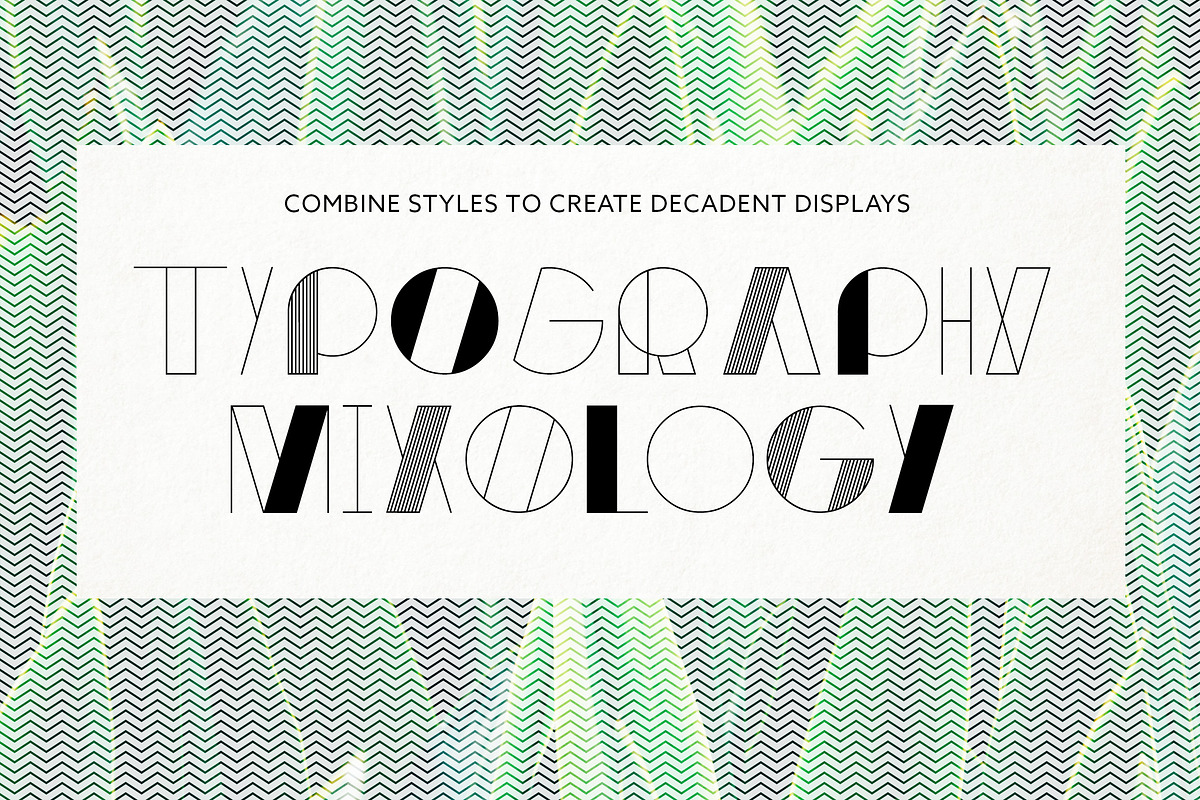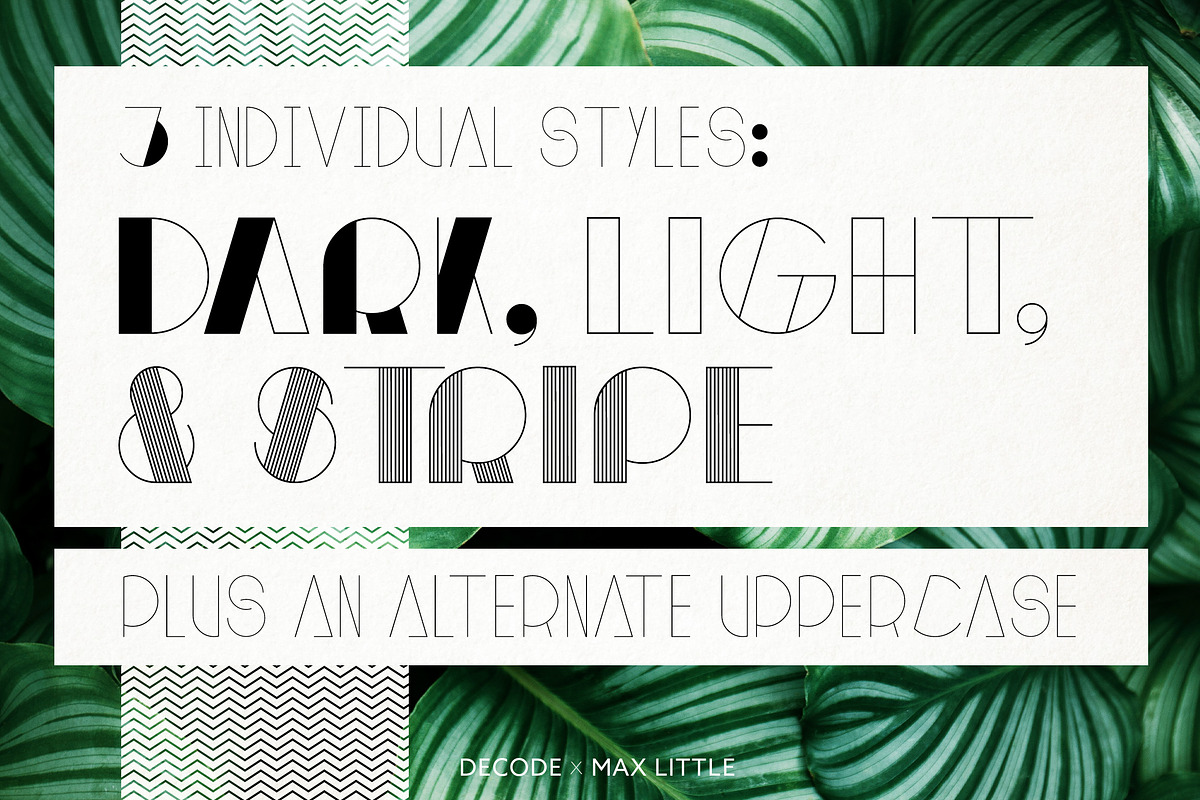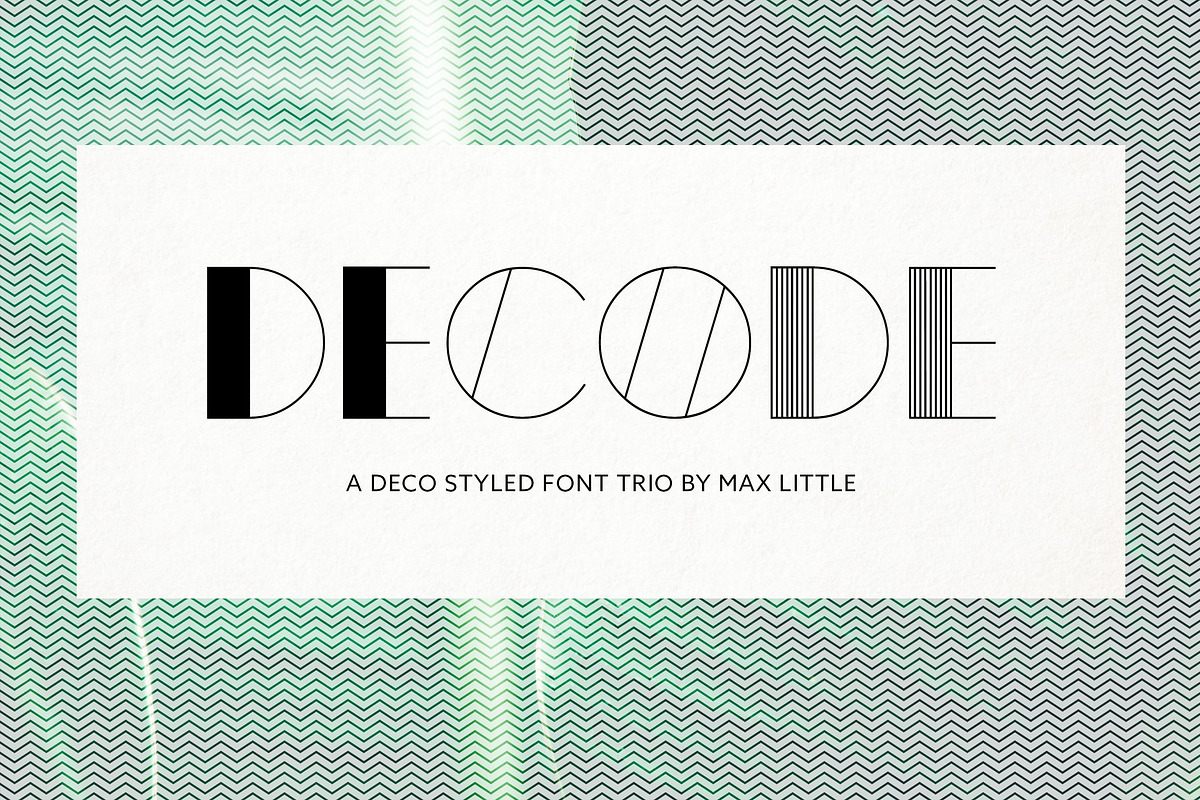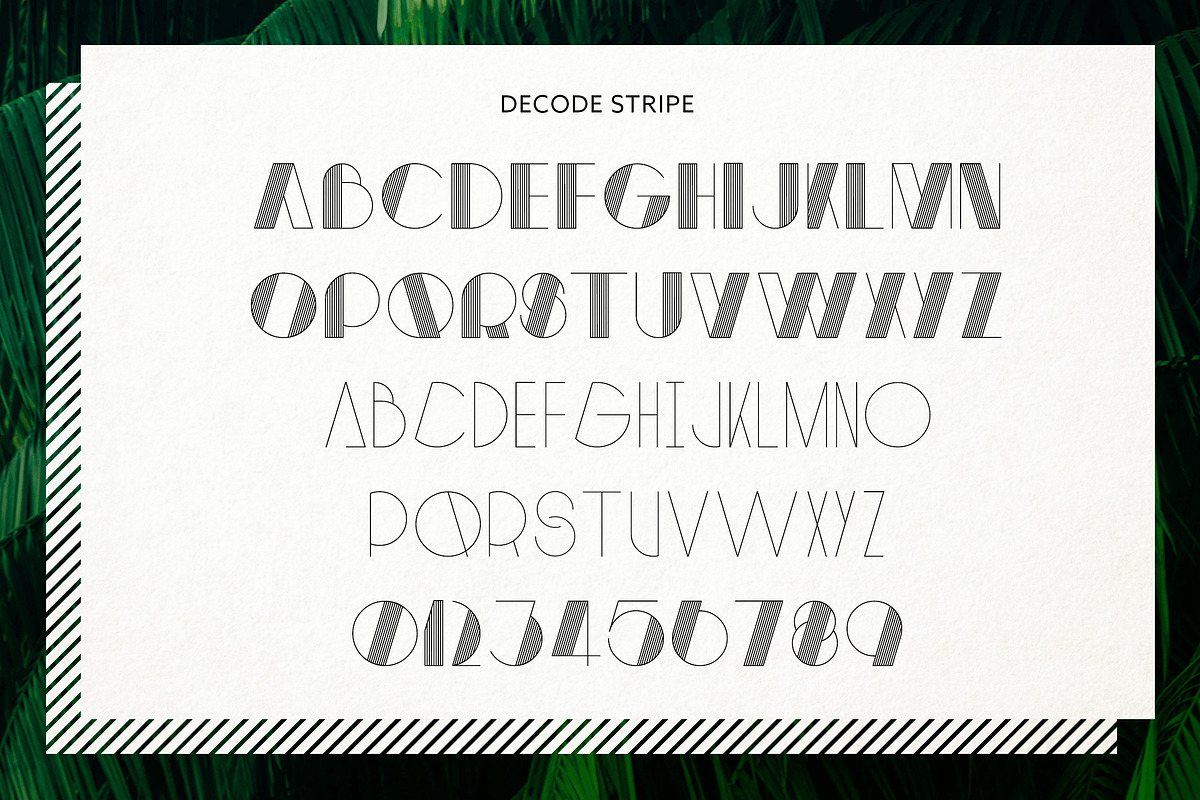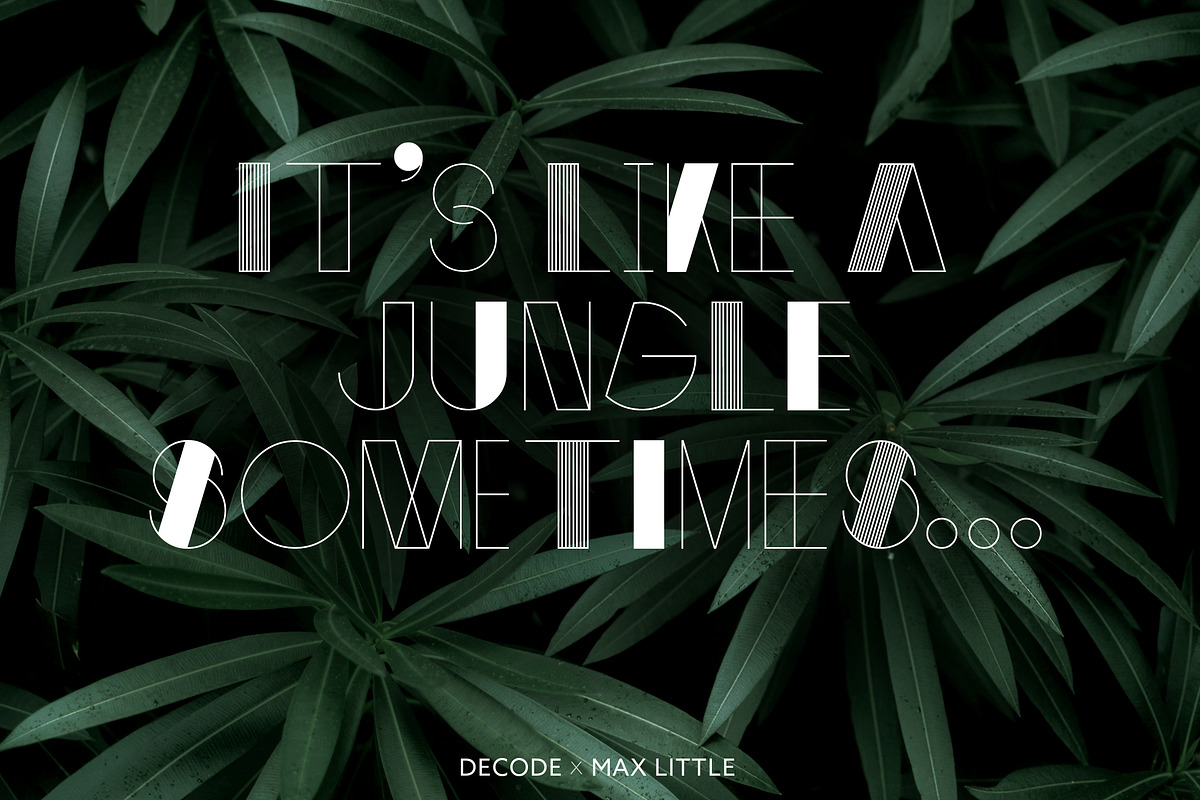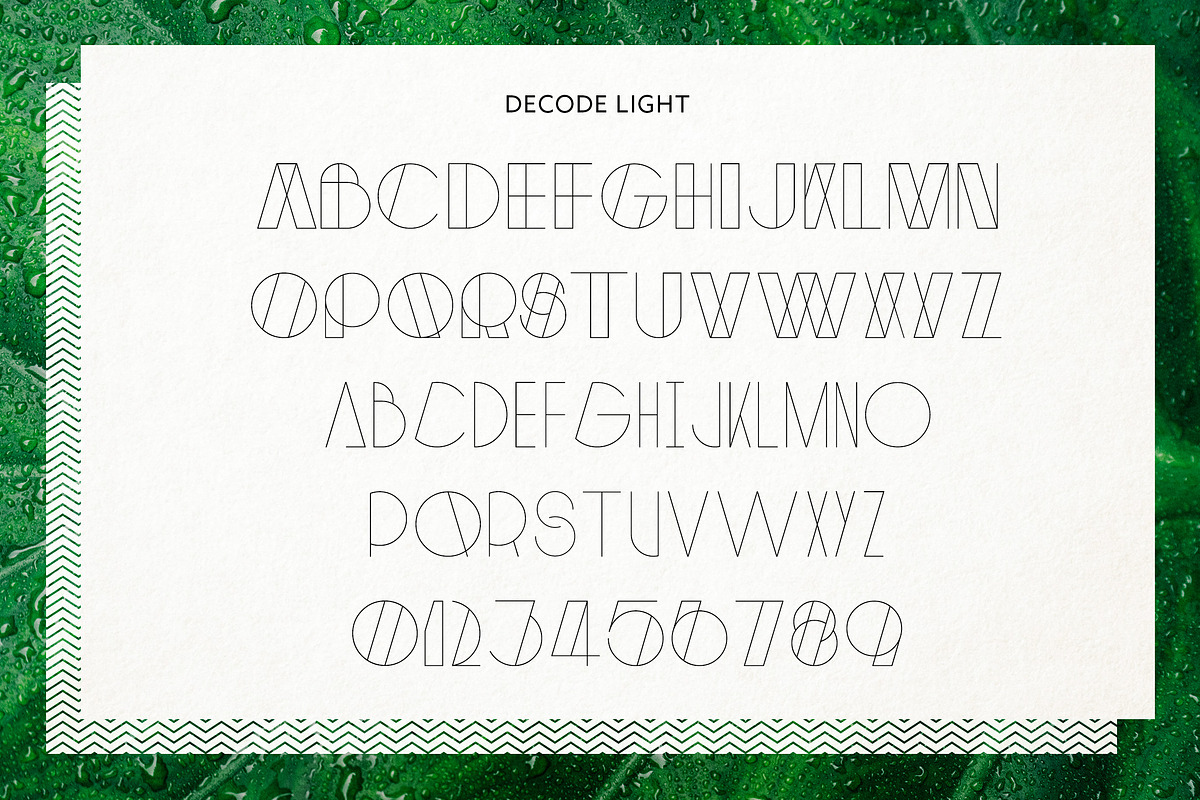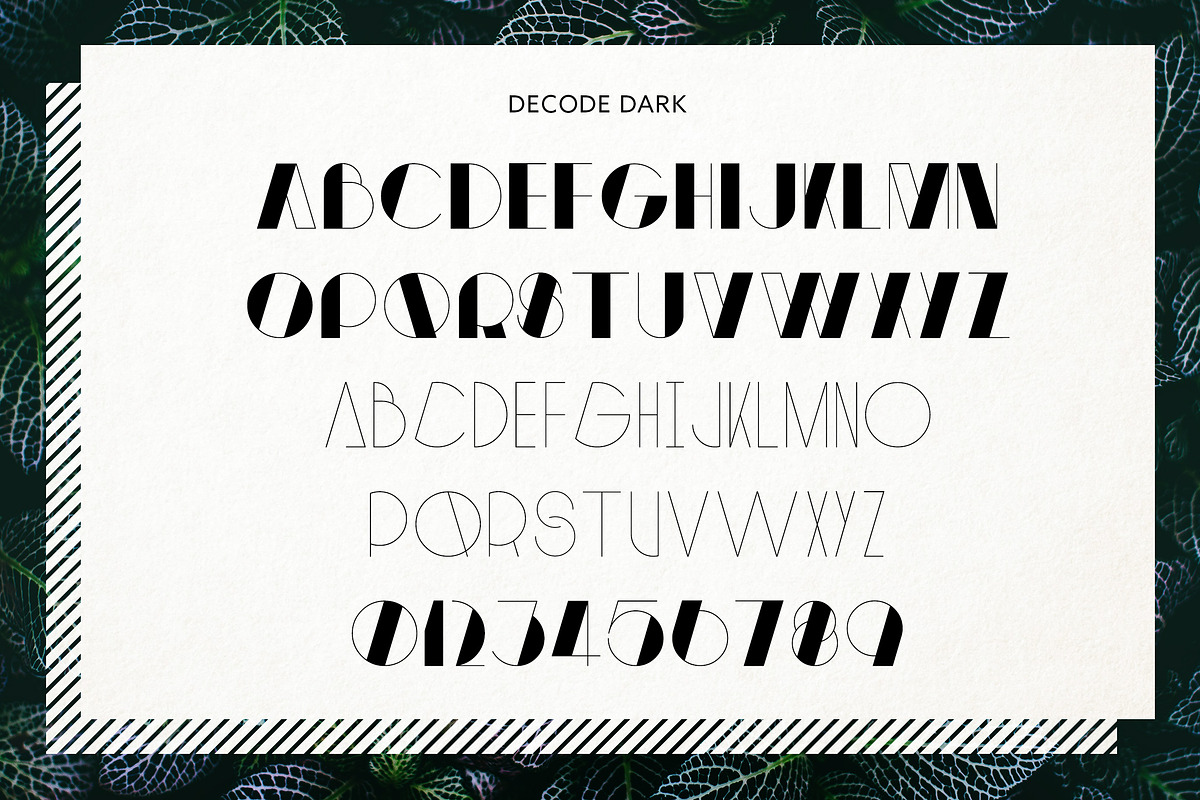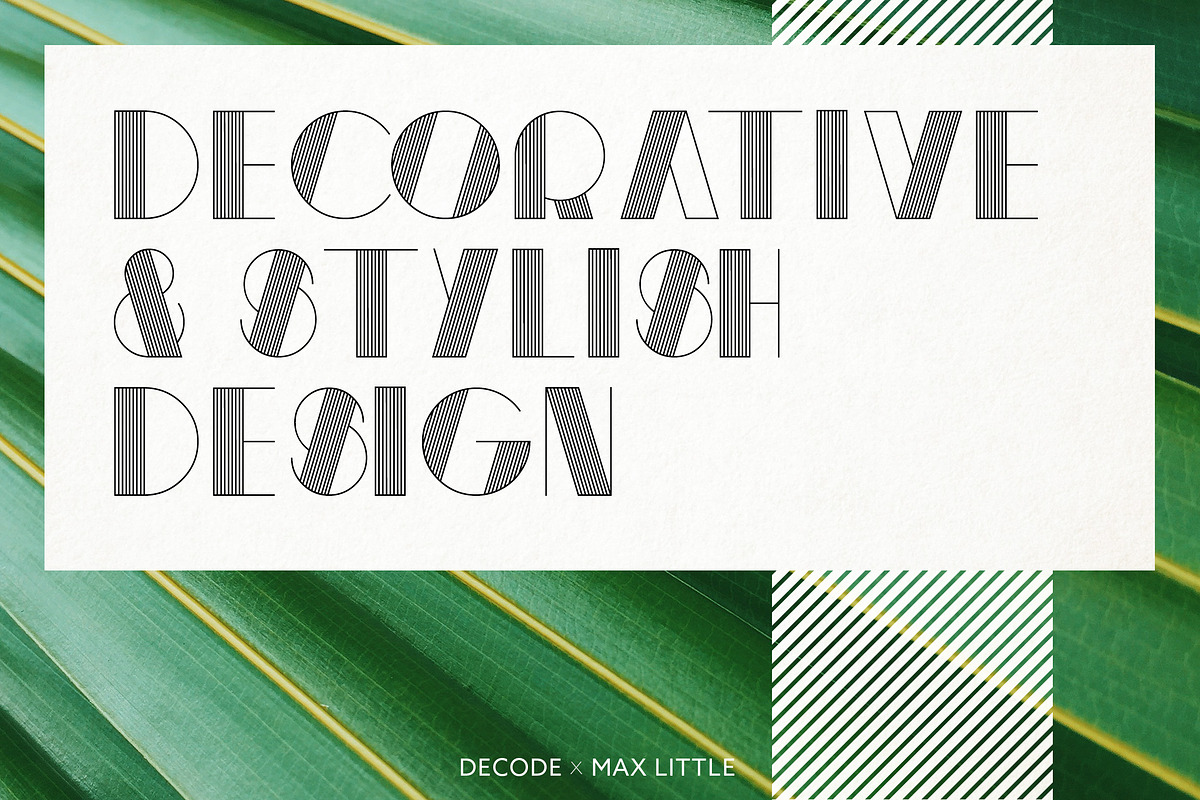
Decode Family
Decode Family by Little Fonts is a font selected for branding, posters, packaging, typography.
- Each version comes with deco styled caps with an alternate uppercase to add extra variation to your work.
Why Decode Family is worth a look
Decode Family by Little Fonts fits naturally into Branding, posters, packaging, typography.